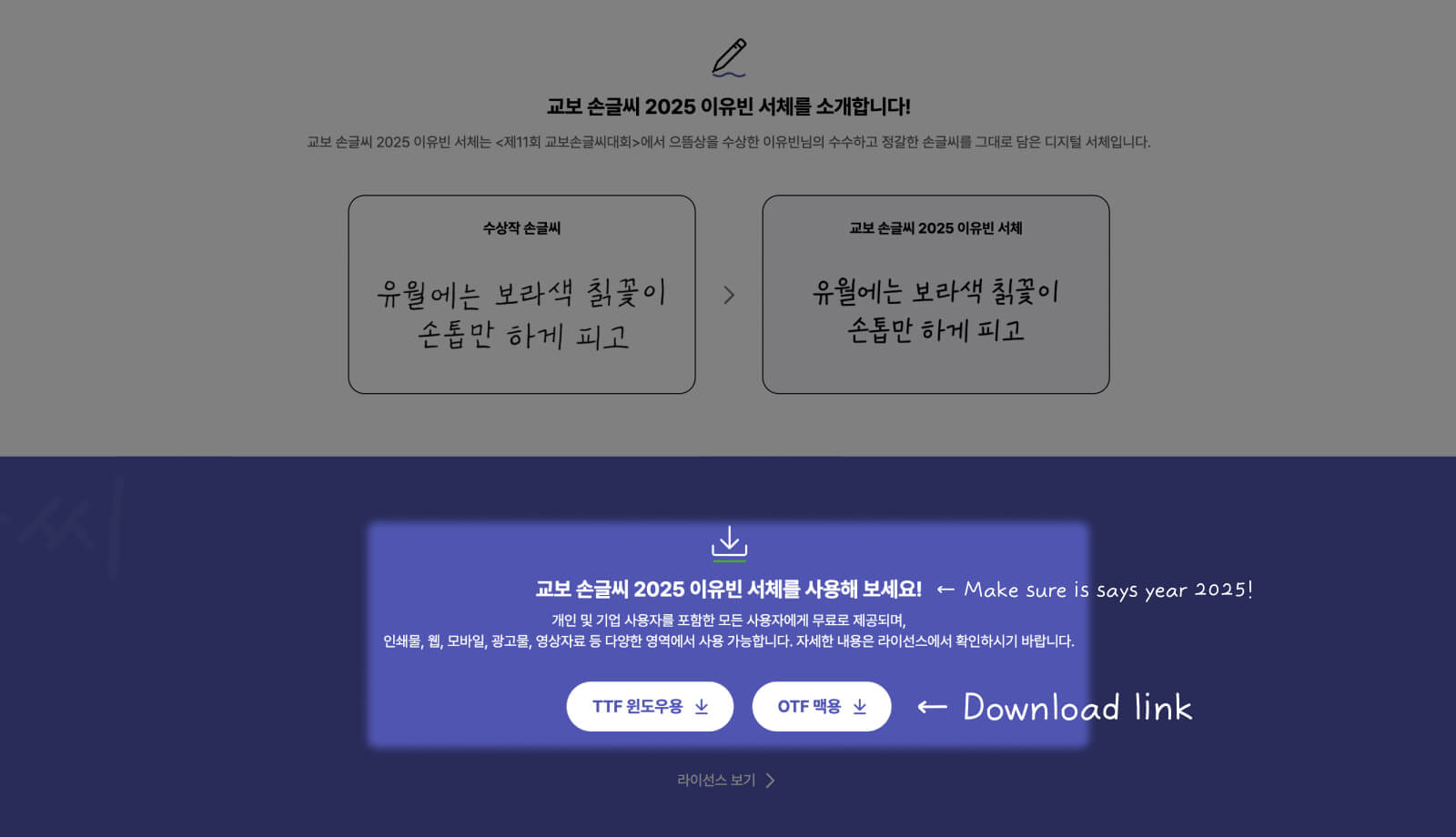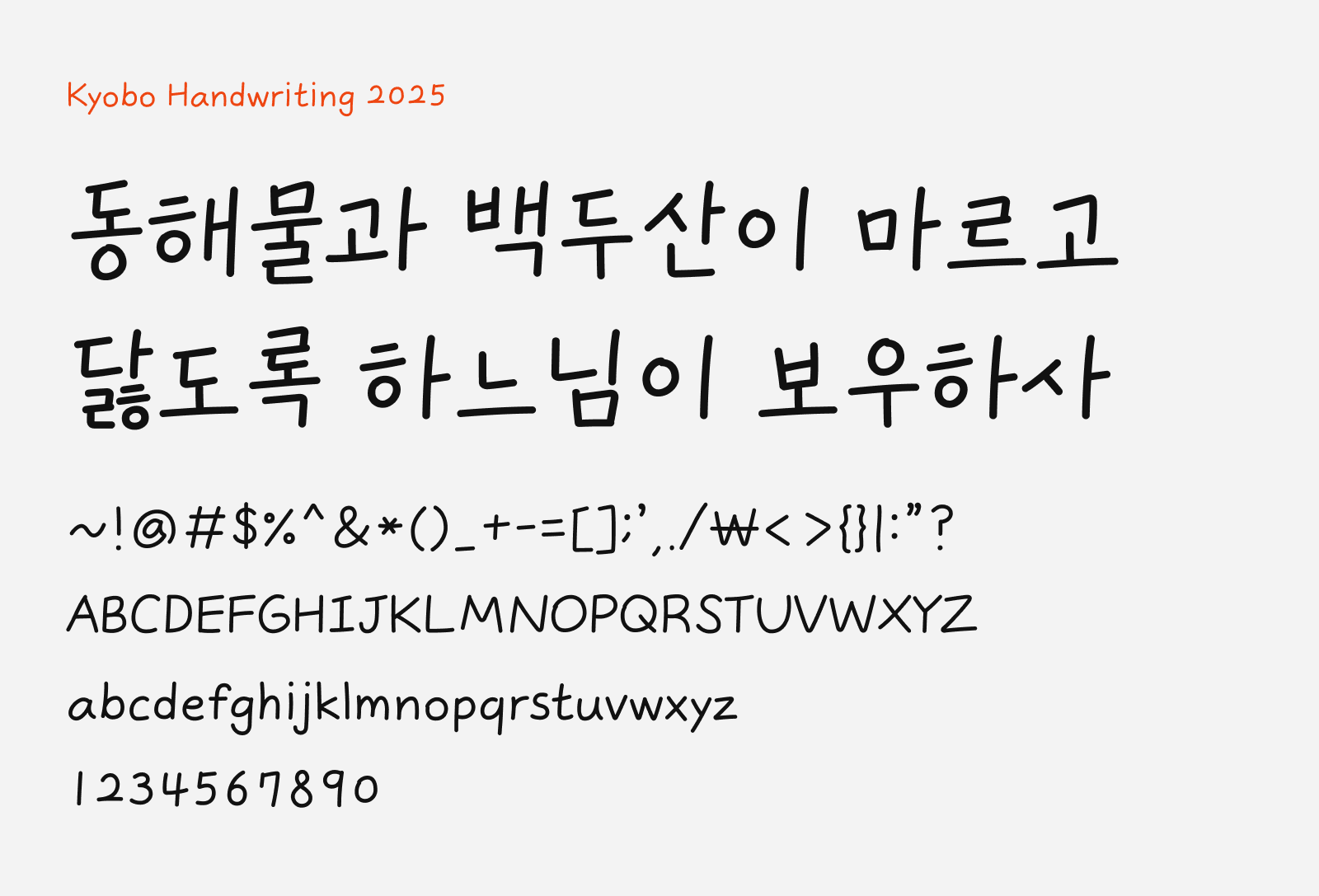
Kyobo Handwriting 2025
Preview of Kyobo Handwriting 2025, a warm and humane free handwriting Korean font
Kyobo Handwriting 2025 Yi Yu-bin (교보 손글씨 2025 이유빈) is a beautiful free-to-download Korean handwriting font. It was born from one of Korea’s most beloved annual traditions. Kyobo Bookstore — the country’s largest bookseller — runs the Kyobo Handwriting Contest (교보손글씨대회) each year, inviting everyday people to transcribe a passage from a book in their own hand. The winner’s handwriting is then painstakingly digitized into a typeface and released to the public, free of charge. This year’s font captures the handwriting of Yi Yu-bin, took the top prize in the general category at the 11th contest.
Her handwriting was modest and neat without being sterile. The letterforms feel genuinely human, carrying the quiet warmth of someone who writes slowly and with care. This is an ideal font for short-form emotional writing — diary-style captions, greeting card text, quote graphics, or anywhere you want a handwritten feel that doesn’t feel performative. It works just as naturally on mobile screens as it does on print, and it carries enough restraint to function well in longer body text too. Available in both TTF (Windows) and OTF (Mac) formats, it’s free for personal and commercial use across print, web, mobile, advertising, and video content.